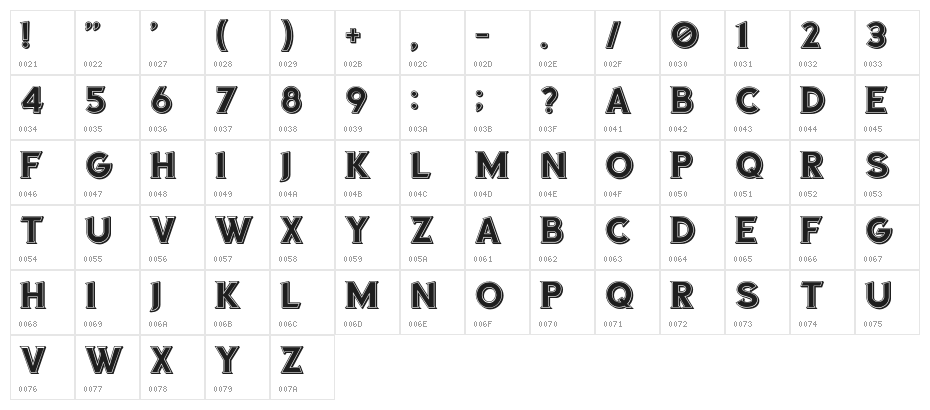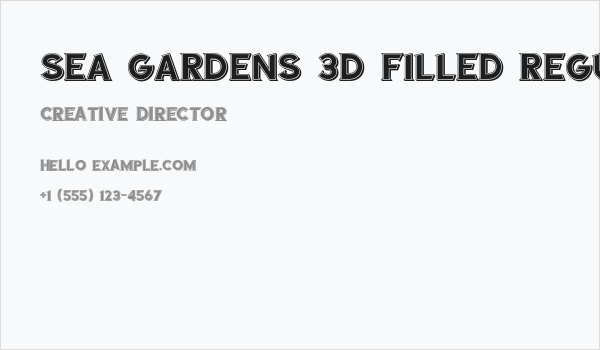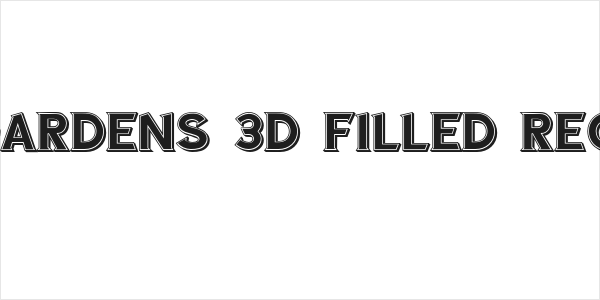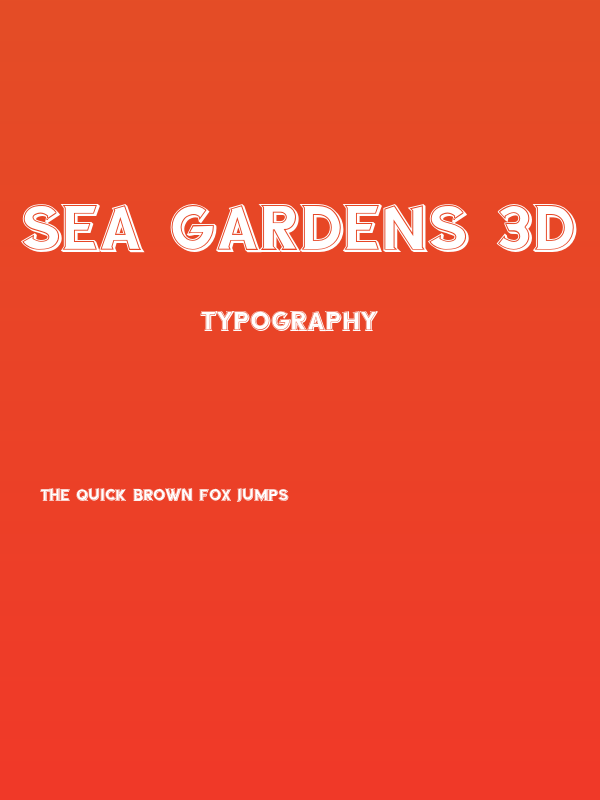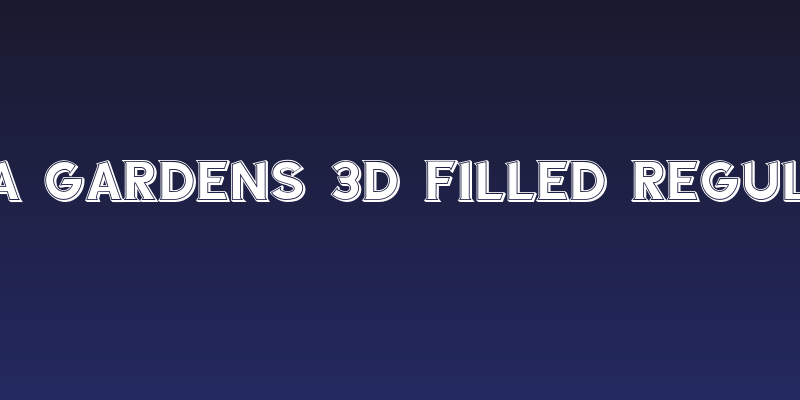
Sea Gardens 3D Filled Regular Font
Sea Gardens 3D Filled Regular Description
This font features a bold, three-dimensional design with a filled interior and a prominent outline, creating a striking visual impact. The uppercase letters are crafted with sharp, angular edges and a consistent stroke width, giving them a strong and assertive appearance. The numbers and special characters maintain this bold style, ensuring uniformity across all characters. The font's 3D effect is achieved through a clever use of shading and depth, making it ideal for eye-catching designs. Its geometric structure and clean lines contribute to a modern and dynamic aesthetic, suitable for various creative applications.
| Proposed Projects | Ideal for posters, headlines, logos, and any project requiring a bold, attention-grabbing typeface. |